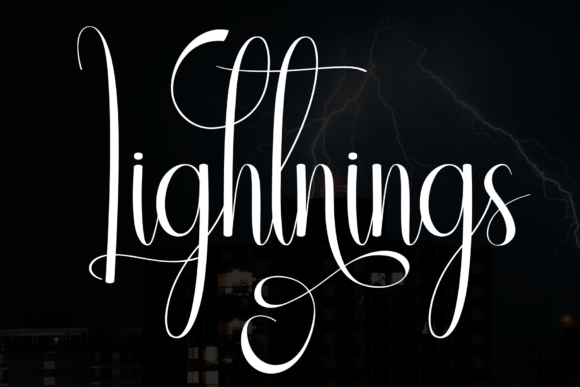
Journey into a world of captivating calligraphy with Lightnings Font, a remarkable Script & Handwritten font that breathes life into your creations. Its fluid strokes and graceful curves dance across the page like bolts of inspiration, adding a touch of magic to your designs.
Picture your wedding invitations adorned with the elegant lettering of the Lightnings Font, evoking a sense of timeless romance. Each letter flows effortlessly into the next, creating an enchanting harmony that sets the perfect tone for your special day. The font's delicate swashes and intricate details add a touch of whimsy and sophistication, making your invitations truly unforgettable.
Envision your logo or branding adorned with the dynamic energy of the Lightnings Font. Its bold, confident strokes command attention, leaving a lasting impression on your audience. The font's unique character adds a touch of personality and distinction, making your brand stand out from the ordinary. The Lightnings Font is not just a font; it's an expression of artistry that elevates your designs to new heights.
With its versatility, the Lightnings Font effortlessly adapts to a wide range of projects, from social media graphics to website designs. Its ability to transform ordinary text into captivating works of art makes it the perfect choice for creative professionals looking to add a touch of magic to their work.
The Lightnings Font is more than just a collection of letters; it's a gateway to a world of boundless creativity. It's the key to unlocking your imagination and transforming your designs into masterpieces. Embrace the power of the Lightnings Font and let your creativity soar.